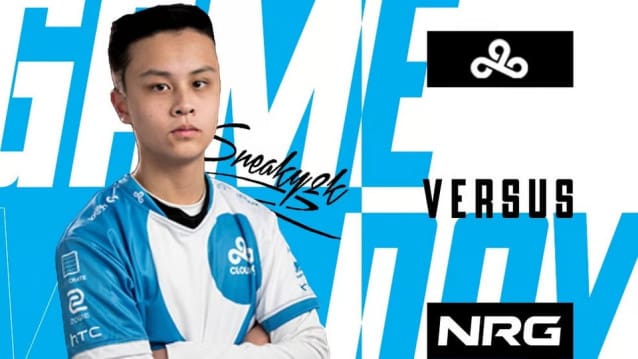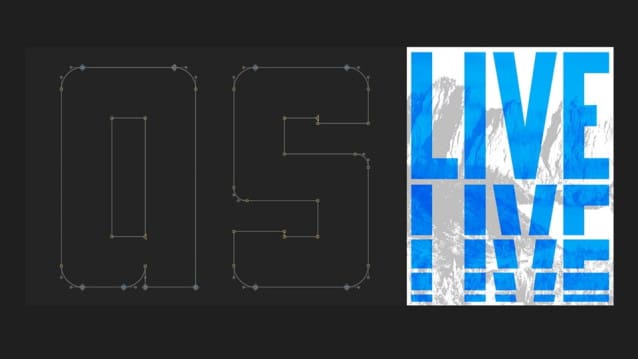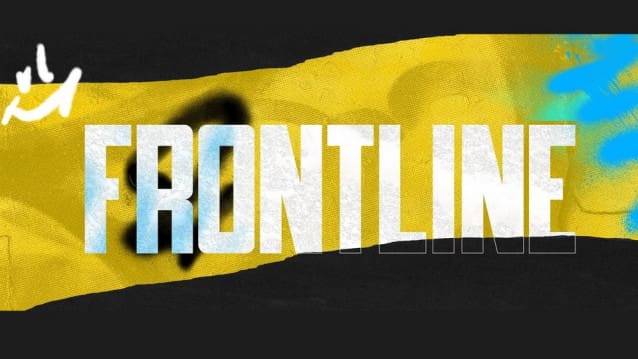
Frontline Font
Frontline Font is a bold, zealous and dynamic typeface. Inspired by the exciting worlds of science-fiction, and all that they may entail.
Featuring uppercase and lowercase lettering, and Latin multi-language support, Frontline aims to cement itself as one of the greats! Designed for general use, this typeface dares to be a bold new addition to your arsenal.